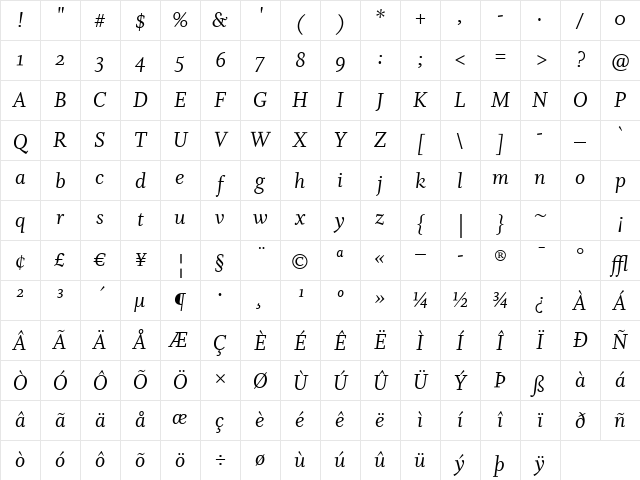
Complete Whitman-ItalicOsF Regular glyph index. Displaying only characters natively supported by Whitman-ItalicOsF Regular font.
Whitman-ItalicOsF is a composed and adaptable typeface that performs quietly and consistently across a wide range of design contexts. The slanted form adds forward momentum and visual energy.
Pro Tip: Use Whitman-ItalicOsF for emphasis, pull quotes, and subheadings where its slanted energy can add rhythm to the layout.